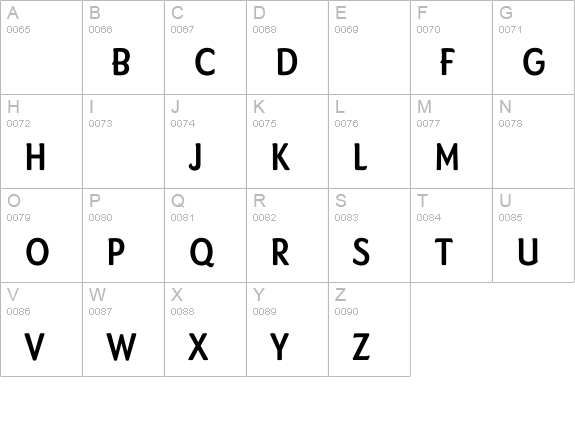
DundeeBoldCond Font Details
Introducing DundeeBoldCond font - a striking and versatile typeface that exudes confidence and modernity. With its bold and condensed design, DundeeBoldCond is perfect for creating impactful headlines, posters, logos, and more. Its clean lines and sharp edges make it a standout choice for any design project. But the best part? DundeeBoldCond is available for free download at FontsMarket.com. Yes, you read that right - this high-quality font can be yours at no cost! Whether you're a seasoned designer looking to add a new font to your collection or a beginner exploring typography for the first time, DundeeBoldCond is a must-have addition to your toolkit. Don't miss out on this fantastic opportunity to elevate your designs with DundeeBoldCond. Download it now and let your creativity soar!